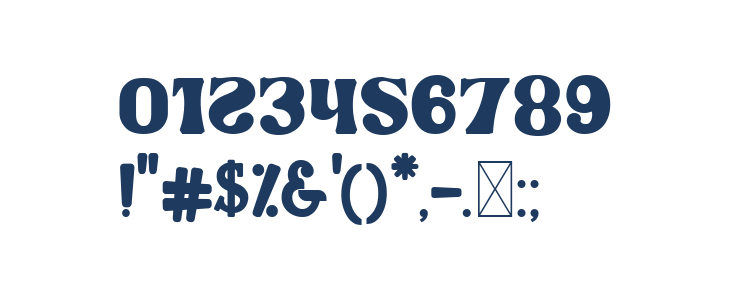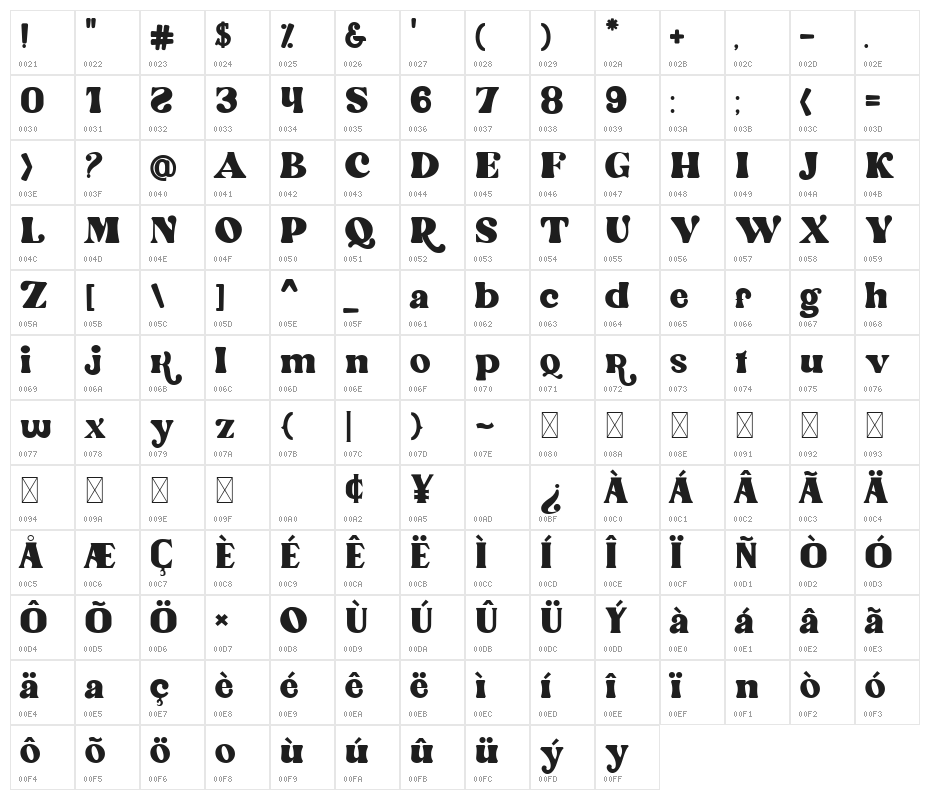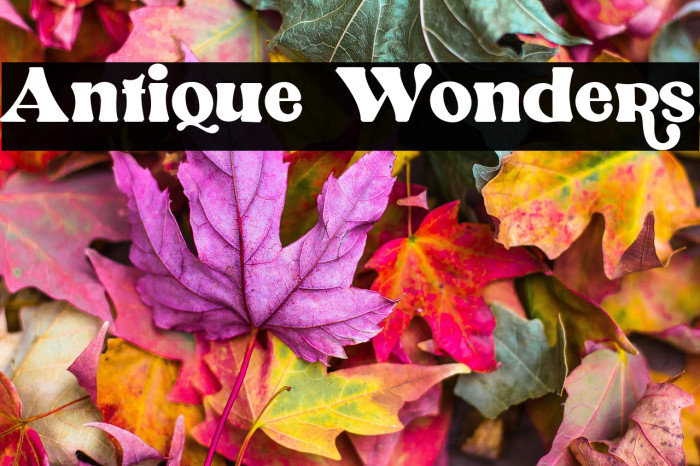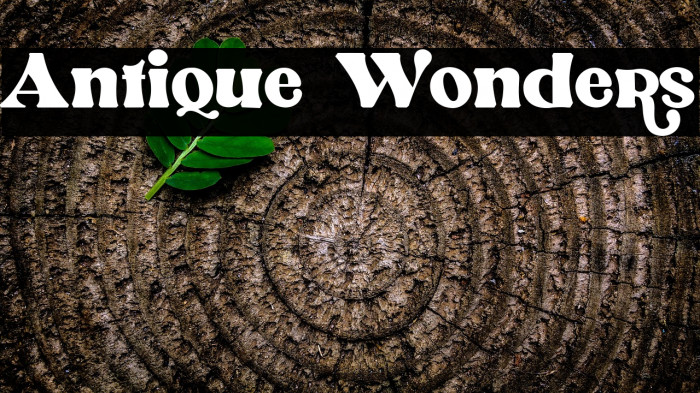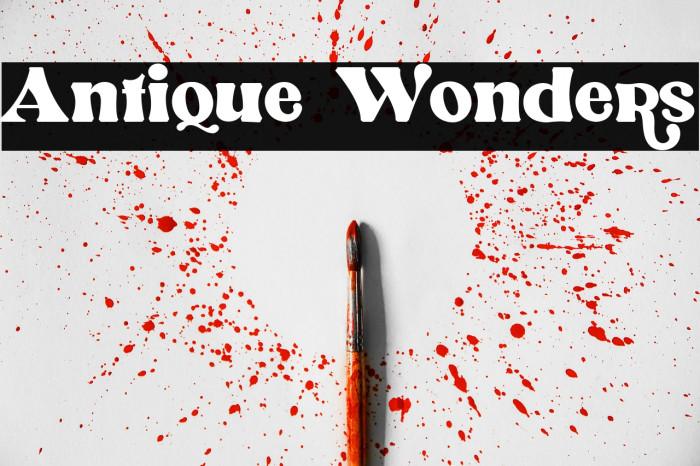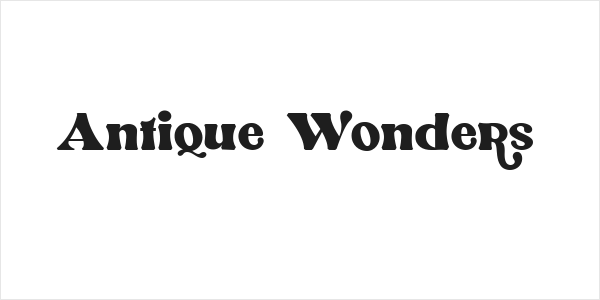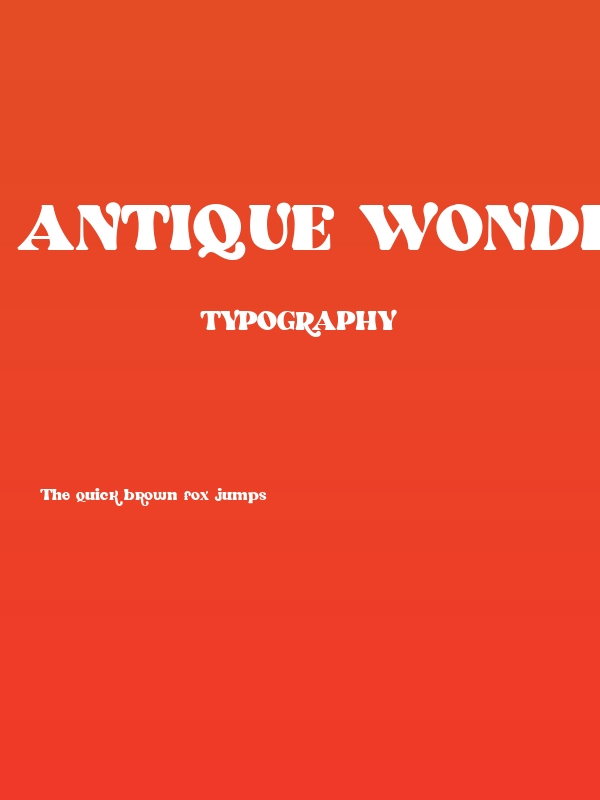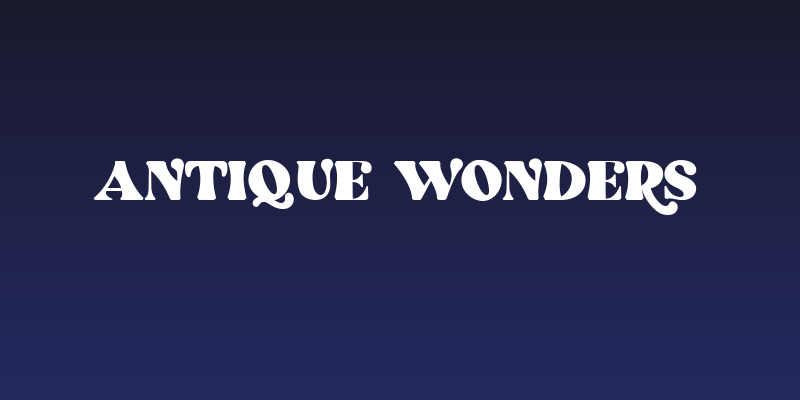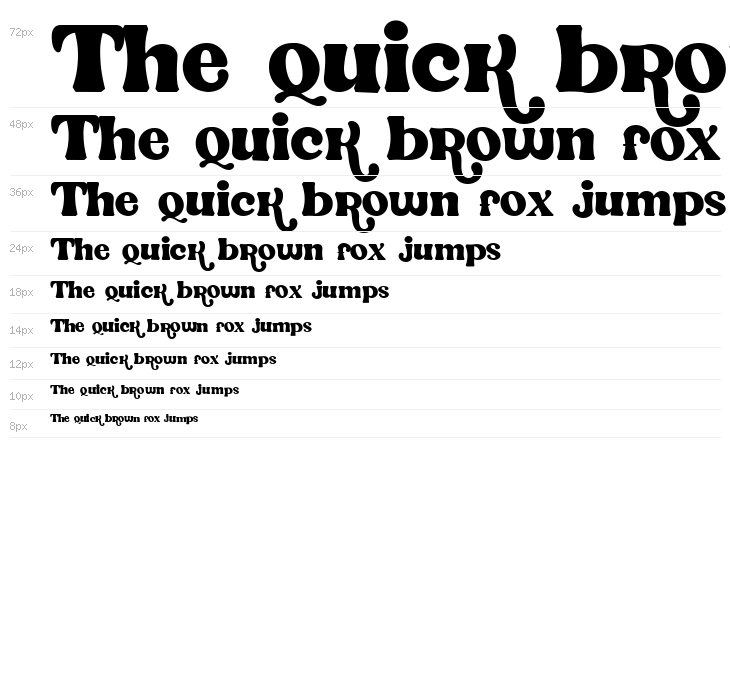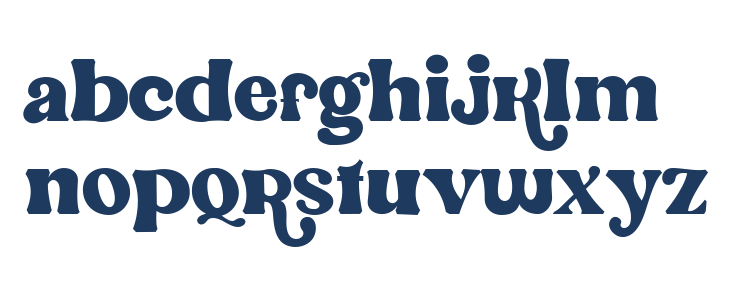
Antique Wonders Font
Antique Wonders Description
This font exudes a vintage charm with its bold, decorative style. The characters are designed with a playful yet sophisticated flair, featuring thick strokes and unique curves that give it a distinctive appearance. The uppercase letters are particularly striking, with their bold presence and intricate detailing. The lowercase letters maintain the same decorative style, ensuring consistency throughout. Numbers and special characters are equally bold and ornate, making them stand out. This font is perfect for projects that require a touch of nostalgia and elegance.
| Proposed Projects | Ideal for vintage-themed posters, branding, packaging, and invitations. |